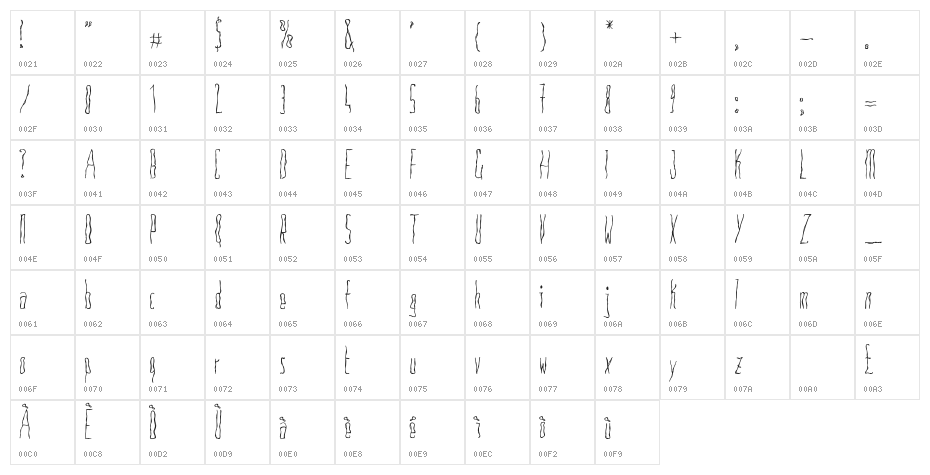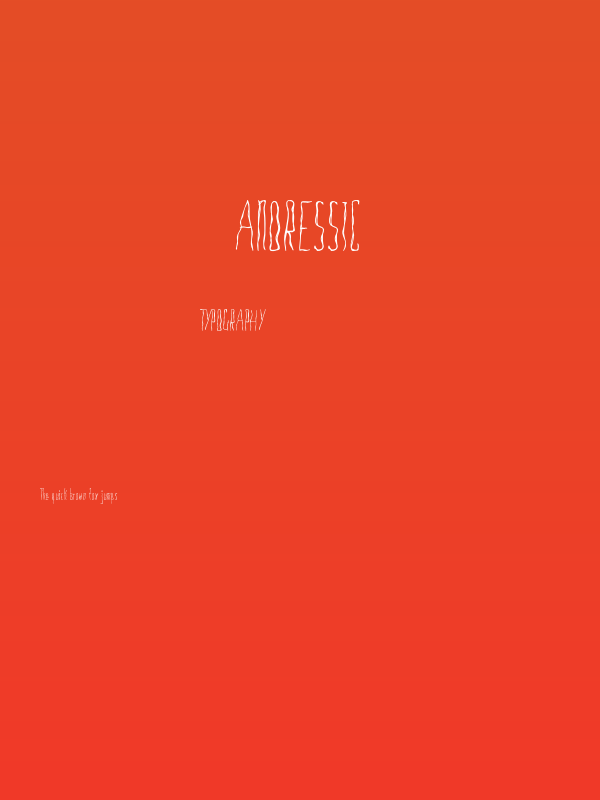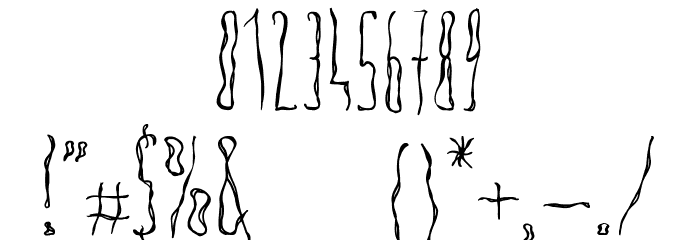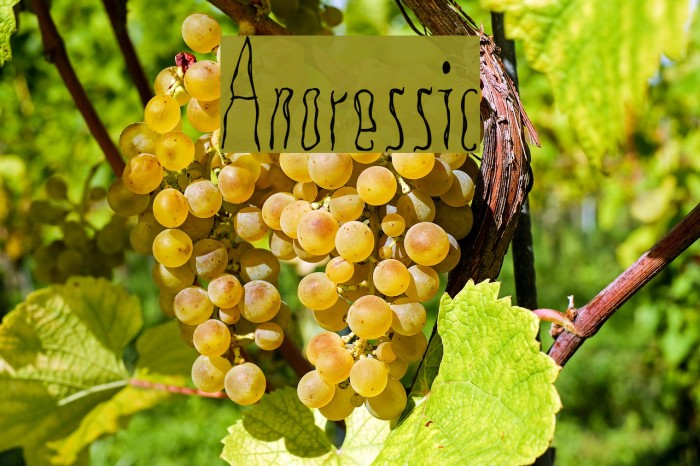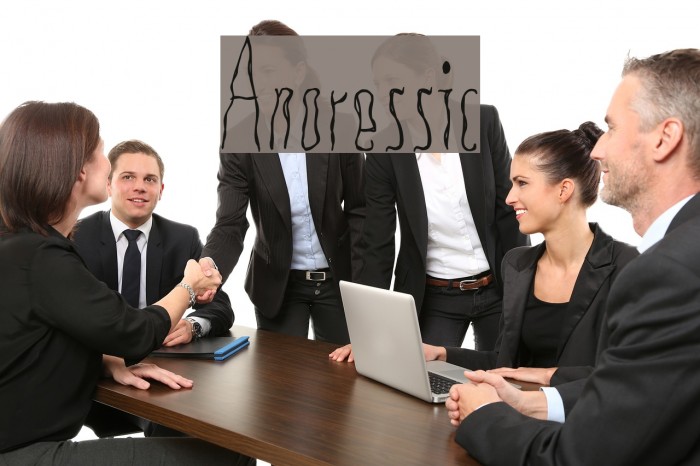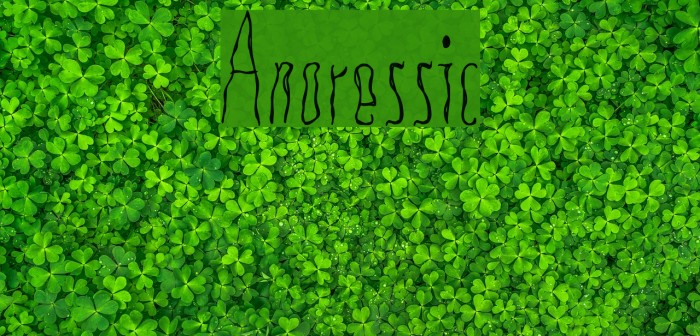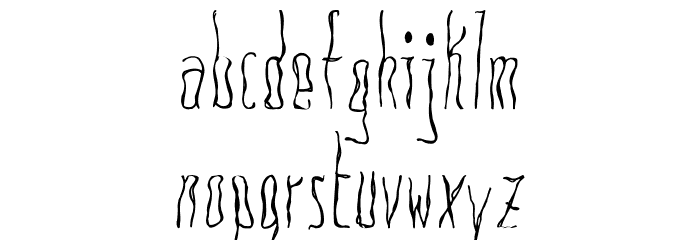
Anoressic Font
Anoressic Description
This font features a unique, elongated design with a hand-drawn appearance. The characters are thin and slightly irregular, giving them a whimsical and artistic feel. The uppercase letters are tall and narrow, while the lowercase letters maintain a consistent height, adding to the font's quirky charm. Numbers and special characters follow the same style, ensuring a cohesive look across all text. The font's distinctiveness makes it stand out, ideal for creative projects that require a touch of individuality and flair.
| Width | Condensed |
| Overall Style | Artistic |
| Use Case | Logos, Posters, Invitations |
| Proposed Projects | Ideal for artistic projects, unique branding, creative posters, and invitations. |